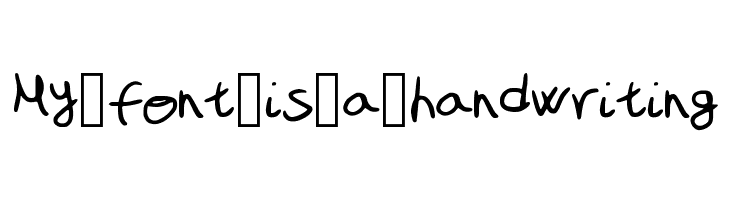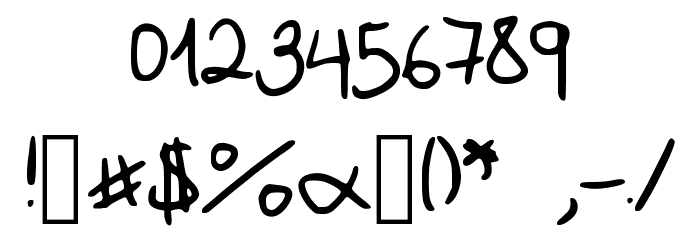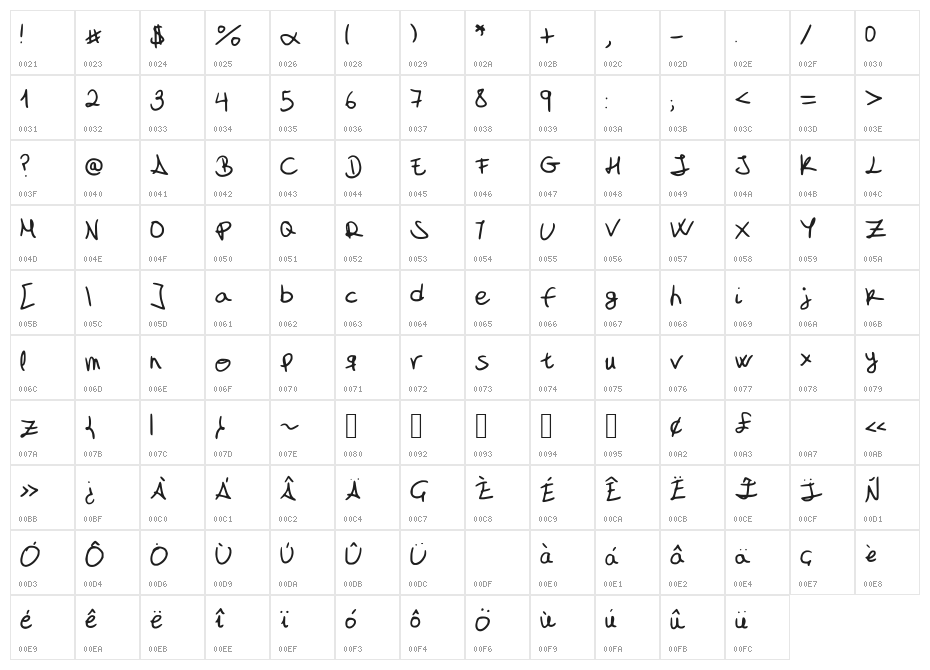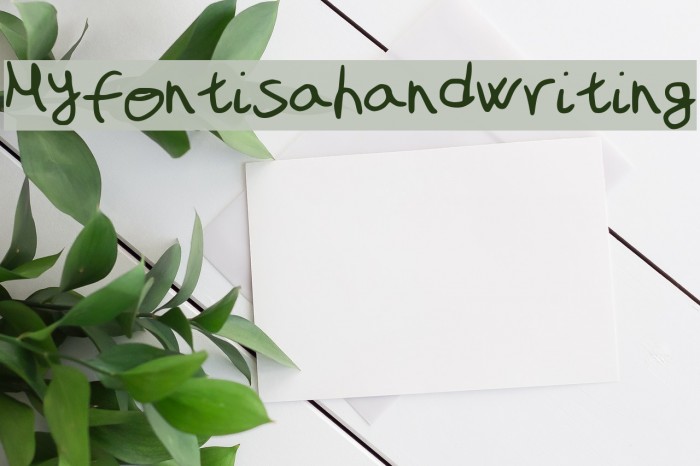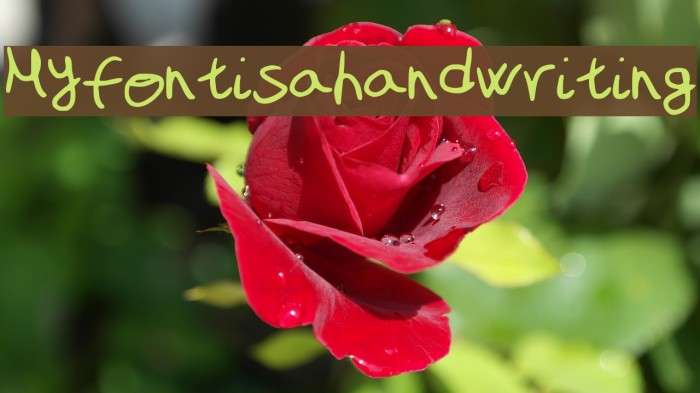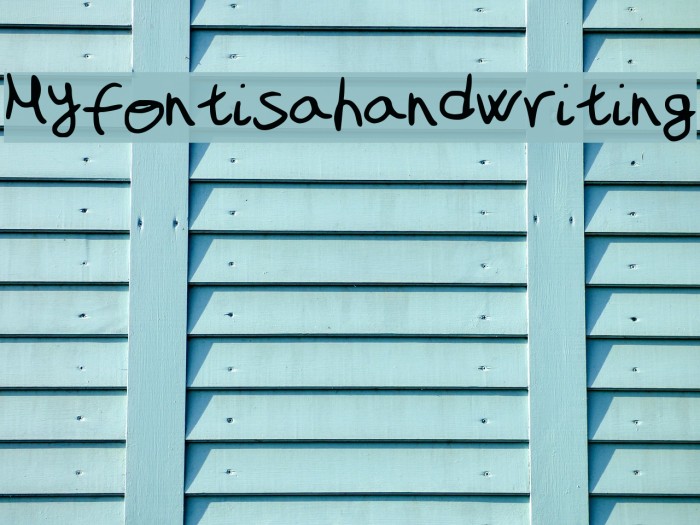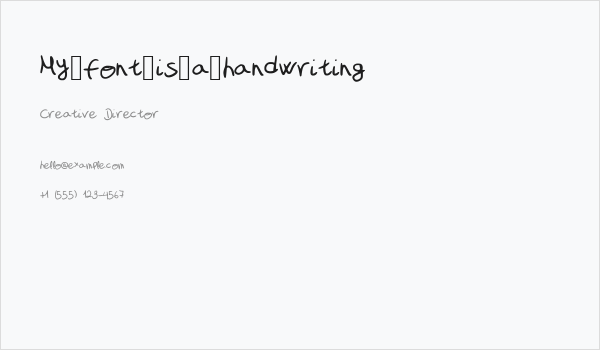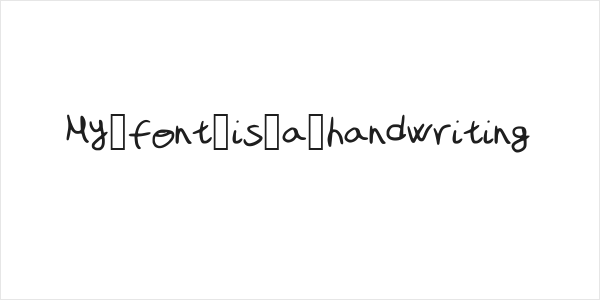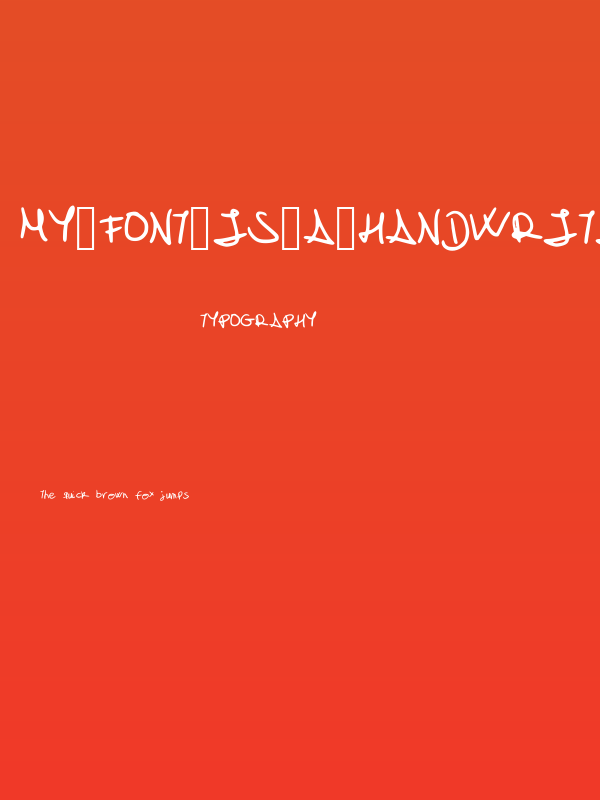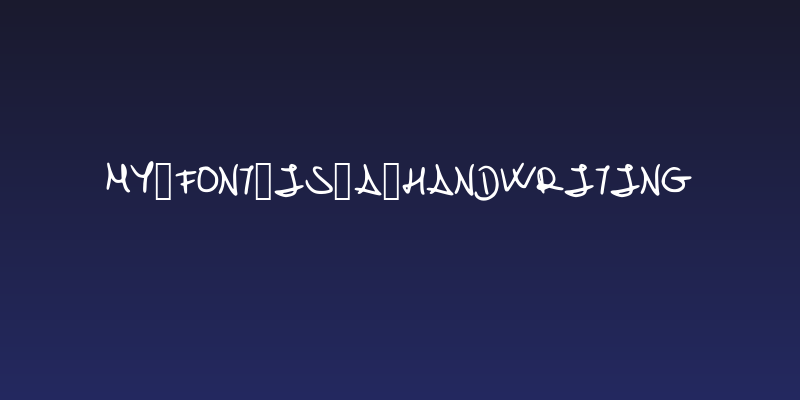
My_font_is_a_handwriting Font
My_font_is_a_handwriting Description
This font exudes a casual and playful handwritten style, characterized by its uneven strokes and organic flow. The letters are slightly slanted, giving a dynamic and informal appearance. The uppercase and lowercase letters maintain a consistent style, with rounded edges and varying line thickness that mimic natural handwriting. The numerals and special characters follow the same aesthetic, ensuring a cohesive look across all glyphs. This font is perfect for projects that require a personal touch, such as greeting cards, invitations, or creative branding. Its legibility and charm make it suitable for both digital and print media.